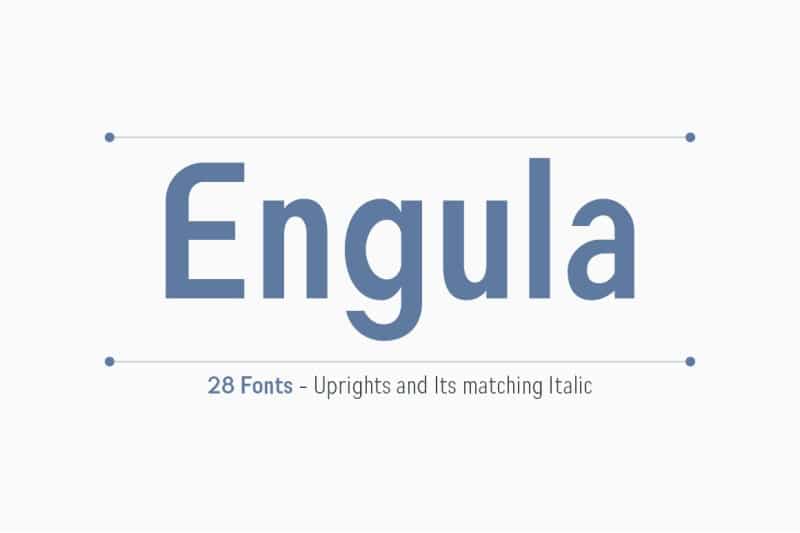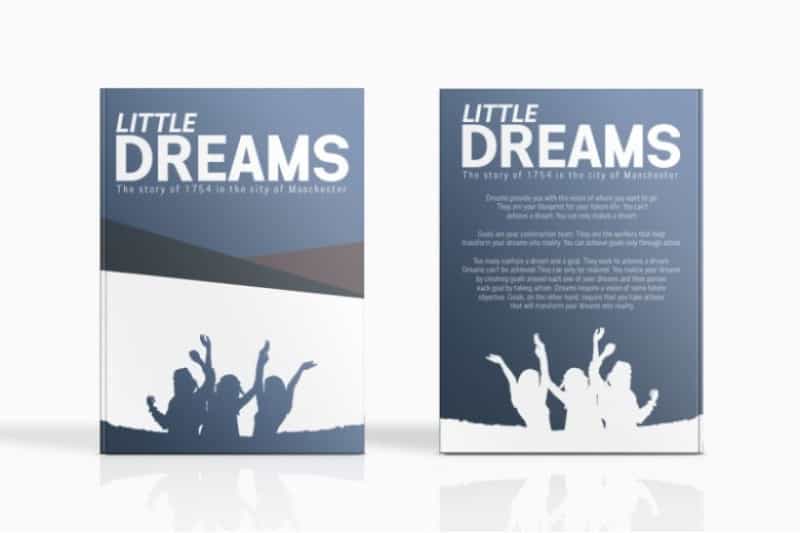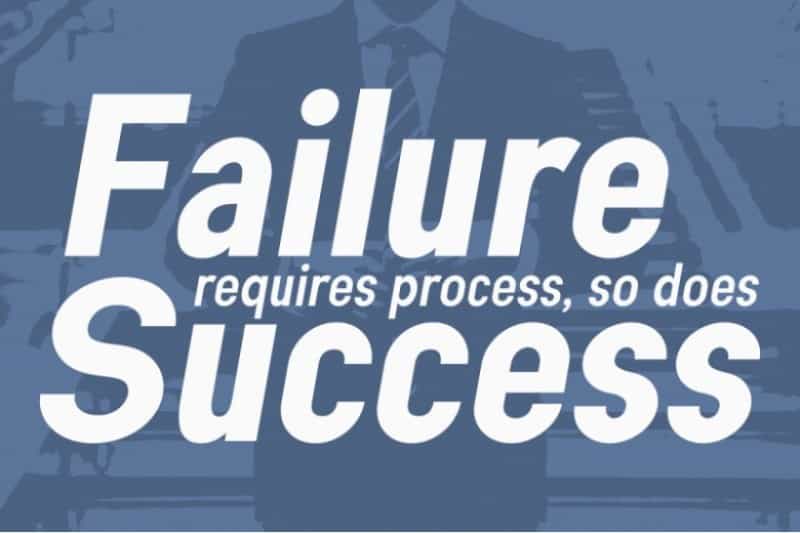
Engula is a sans serif font family that is quite unique and out of the ordinary. It consists of 24 fonts: 12 standard weights and 12 corresponding italic types.